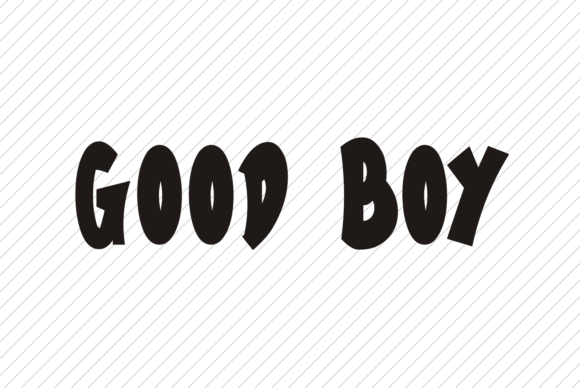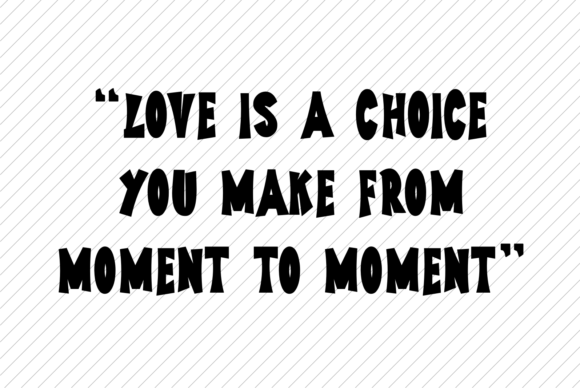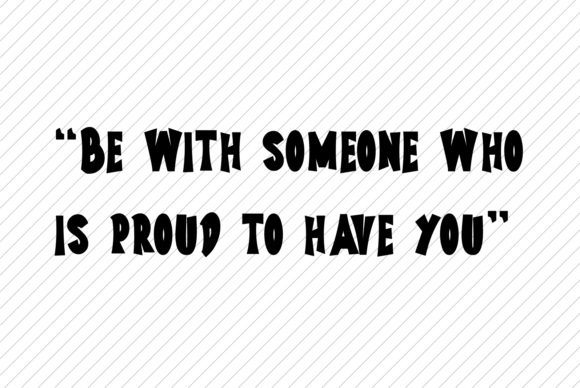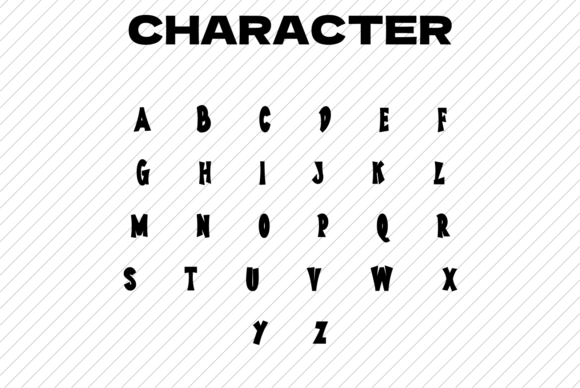
Introduction to Lekuis Font
Have you ever stared at a blank canvas, searching for the perfect font to bring your creative project to life? You know, that moment when the design just clicks, and everything falls into place? That’s what we’re about to explore – a game-changing font that will elevate your designs and leave a lasting impression. Say hello to the Lekuis Font, a thick-lettered and cool display font that’s sure to make your creations stand out from the crowd.
As a valuable resource for designers, the Lekuis Font offers a high-quality design solution that’s both simple and visually striking. With its transparent background, it’s the perfect addition to any creative project, allowing your design to shine through. And the best part? It’s available for free download, making it an instant favorite among designers looking for a reliable and versatile font.
Key Features of Lekuis Font
- Lekuis Font is a high-quality, free design resource ideal for creative projects requiring a unique touch.
- This font features a transparent background, making it easy to customize and pair with other design elements.
- Lekuis Font is designed with a distinctive, modern aesthetic, perfect for adding a touch of sophistication to any creative project.
- The font includes a range of characters, including uppercase and lowercase letters, numbers, and punctuation marks.
Honest Review: Lekuis Font
I recently stumbled upon Lekuis Font, a design resource that has been making waves in the creative community. As a designer, I was excited to give it a try and see if it lives up to the hype.
First impressions are everything, and Lekuis Font does not disappoint. The high-quality font is perfect for any creative project that requires a clean and modern look. I was impressed by the sheer variety of styles and weights available, making it easy to find the perfect fit for my design.
- ✨ High-quality font with a transparent background, making it easy to customize and manipulate.
- ✨ Wide range of styles and weights available, suitable for various design projects.
However, there are a few limitations to keep in mind. The font is not as versatile as some other design resources, and it may not be suitable for projects that require a more exotic or unique look.
Overall, I’m impressed with Lekuis Font. It’s a solid design resource that is perfect for designers who value high-quality, clean designs. While it may not be the best fit for every project, it’s definitely worth checking out for any creative endeavors that require a modern and sophisticated look.
Lekuis Font is a high-quality design resource ideal for creative projects. With a transparent background, this font is perfect for any design project that requires a clean and modern look.
Lekuis Font is ideal for a variety of creative projects, including business cards, brochures, and social media graphics. Its clean and modern design makes it perfect for any project that requires a professional and high-quality look.